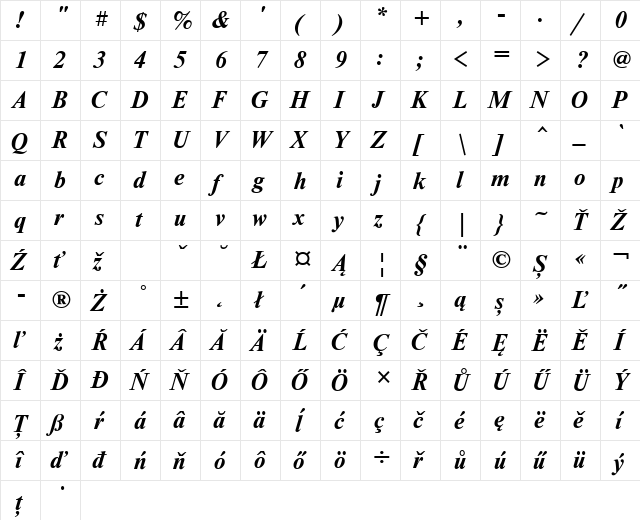
NewtonETT BoldItalic Font Preview
NewtonETT BoldItalic
Design Context for NewtonETT Typeface
NewtonETT is a composed and adaptable typeface that performs quietly and consistently across a wide range of design contexts. The dynamic lean of this cut emphasises speed and emphasis in any layout. Its bold stroke weight gives it real presence on the page.
Pro Tip: Use NewtonETT for emphasis, pull quotes, and subheadings where its slanted energy can add rhythm to the layout.